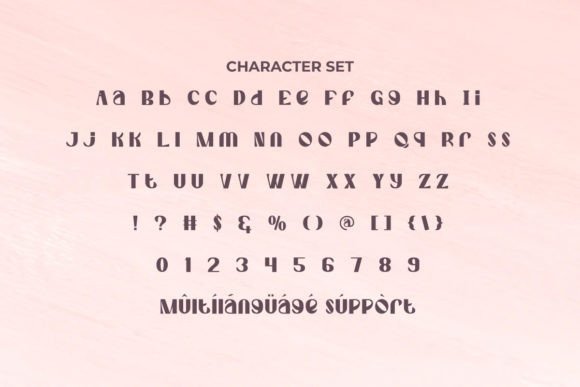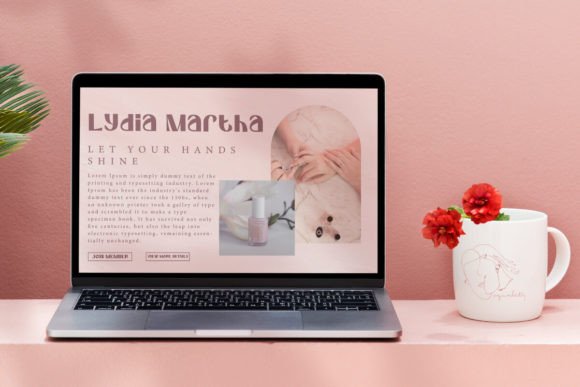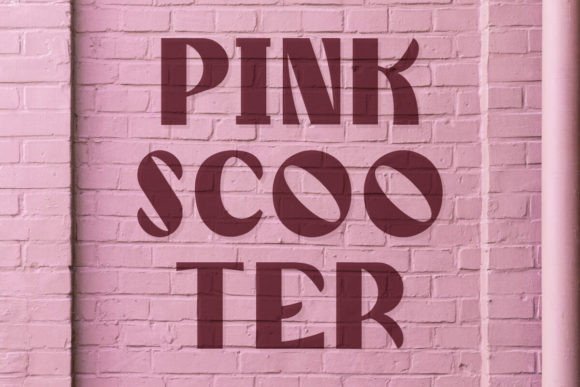
Introduction to Pink Scooter Font
Have you ever stumbled upon the perfect font while browsing through design resources, and it completely changes the direction of your creative project? That’s exactly what happened to many designers when they discovered the Pink Scooter Font. This stunning display font, crafted by NoahType, is a game-changer for any design enthusiast looking to add a touch of modernity to their work.
As a valuable addition to any designer’s toolkit, the Pink Scooter Font offers a high-quality, versatile font that can be used in a wide range of applications, from business cards to web designs. With its unique lines and transparent background, this font is perfect for designers who want to make a lasting impression on their audience. Whether you’re working on a free download or a paid project, the Pink Scooter Font is sure to elevate your design to the next level.
Key Features of Pink Scooter Font
- Unique and playful design, perfect for creative projects and modern designs
- High-quality font with transparent background for easy editing and customization
- Designed with a bold and vibrant style, ideal for use in logos, branding, and marketing materials
- Features a large character set, including uppercase and lowercase letters, numbers, and punctuation marks
Honest Review: Pink Scooter Font
As a designer, I’m always on the lookout for high-quality design resources that can elevate my creative projects. Recently, I stumbled upon the Pink Scooter Font, and I’m excited to share my honest review.
- ✨ Unique and playful design: The Pink Scooter Font has a fun and quirky vibe that’s perfect for adding a touch of personality to your designs.
- ✨ High-quality graphics: The font is well-designed and features crisp, clean lines that make it suitable for a wide range of creative projects.
- ✨ Transparent background: This makes it easy to use the font on top of other images or backgrounds without any issues.
- ⚠️ Limited font styles: While the font is well-designed, it’s limited to a single style, which might not be ideal for designers who need a range of font options.
- ⚠️ Not suitable for formal designs: Due to its playful and quirky nature, the Pink Scooter Font might not be the best choice for formal or professional designs.
Overall, I’m impressed with the Pink Scooter Font, and I think it’s a great addition to any designer’s toolkit. It’s free to download and offers a unique and high-quality design resource for creative projects.
Use Pink Scooter Font on high-quality designs with transparent backgrounds for a unique and creative look. Experiment with different font sizes and colors to find the perfect combination for your project.
Pink Scooter Font is perfect for creative projects such as social media graphics, flyers, and posters. It’s also great for branding and logo designs that require a fun and playful touch.